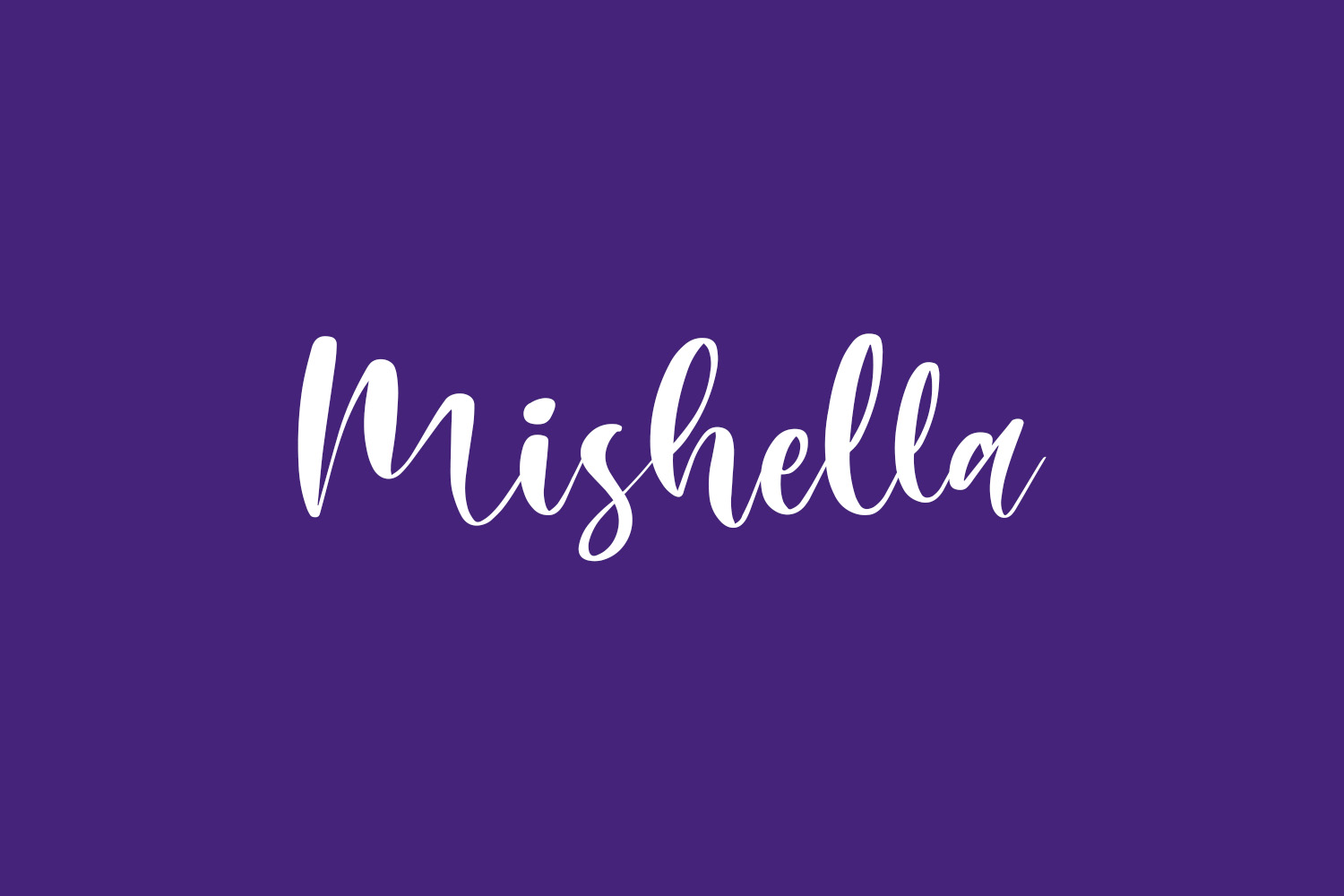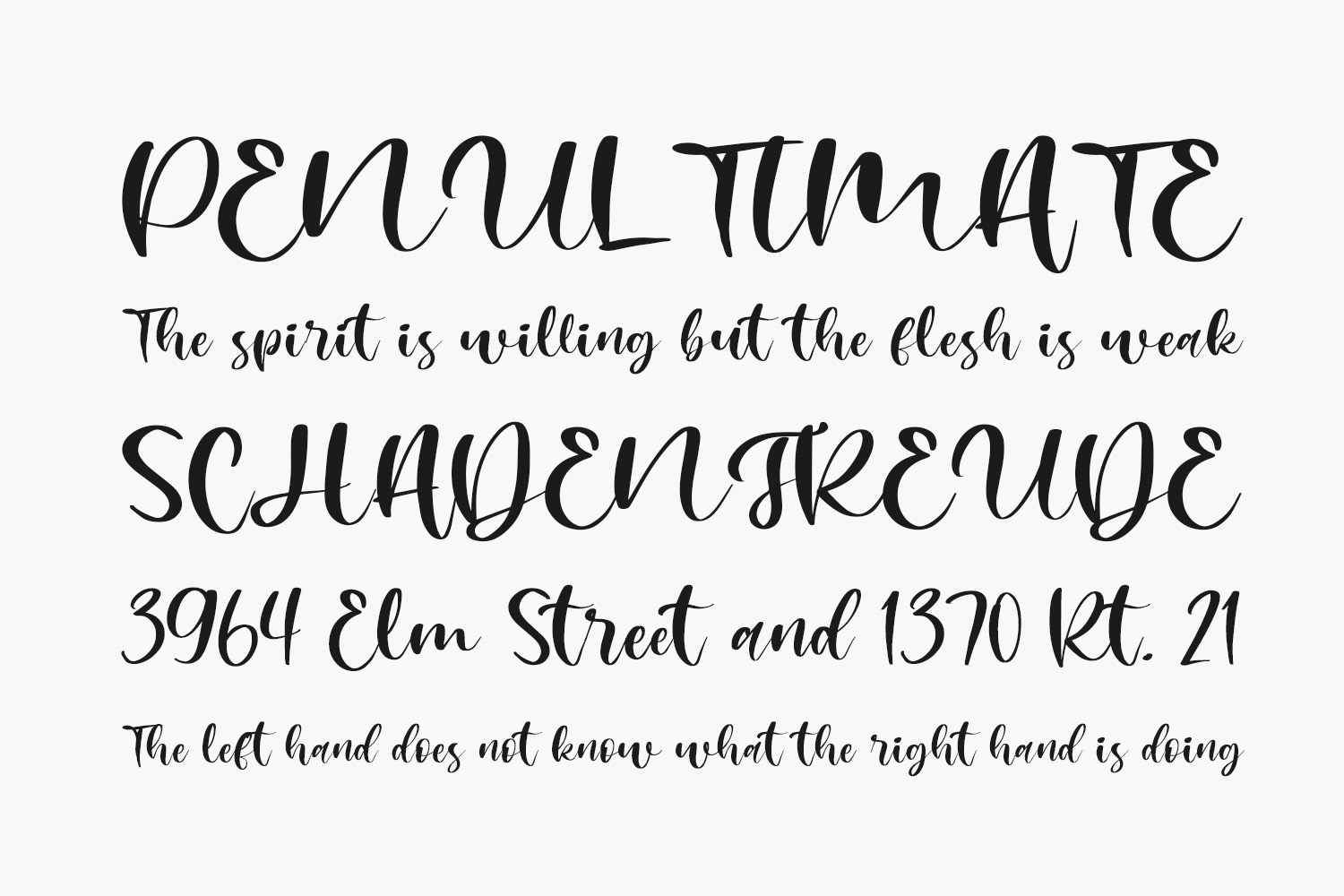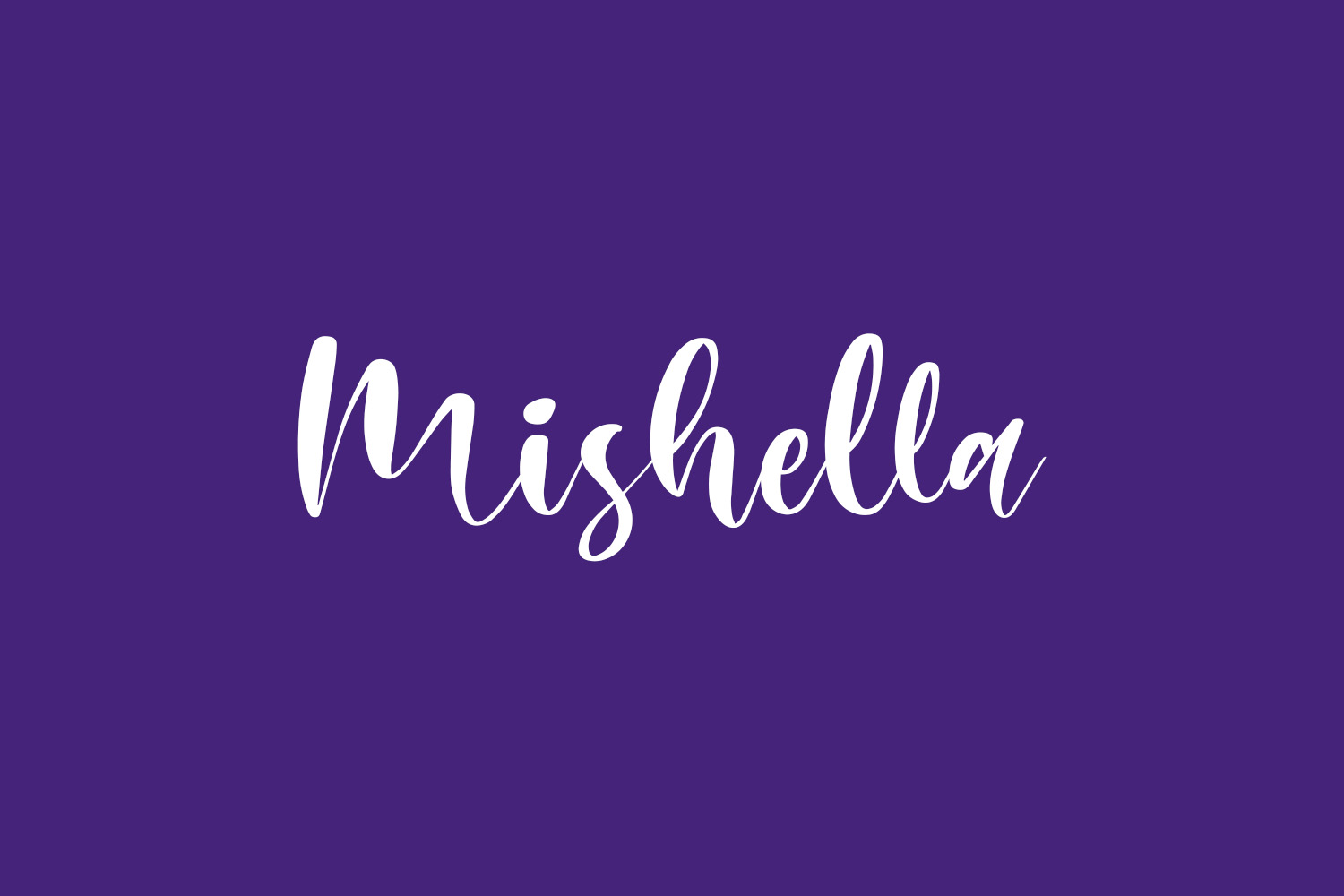
Mishella Free Font Family is a delicate and elegant handwritten font. Its distinct and well rounded letters make this font a masterpiece. Fall in love with its incredibly versatile style and use it to create spectacular designs. Mishella Free Font Family was designed by Letterena Studios and is free for personal use only. Please purchase the full version for commercial use.